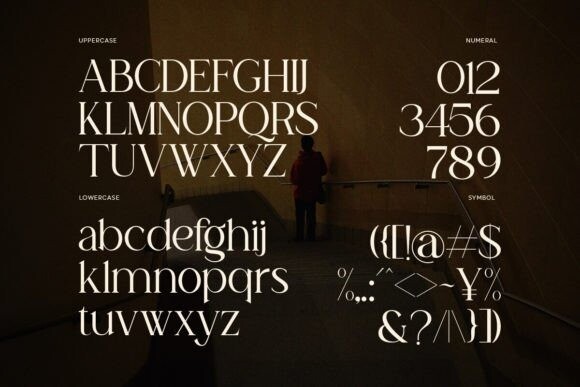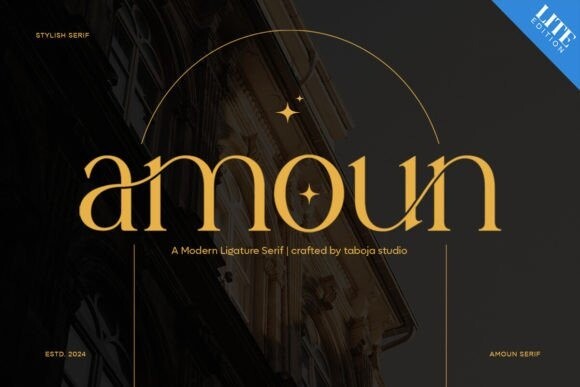
Amoun Font
Amoun Font – The lite edition of this font is an exclusive window for you to taste the essence and unique characteristics before its full version is released. Carefully curated with selected characters, this Lite version presents a tantalizing glimpse of clarity and captivating design capabilities.
Amoun modern ligature Serif Designed for versatility, a sophisticated choice for a myriad of design projects. The judicious use of thick and thin strokes imparts a timeless elegance, making it ideal for branding, editorial layouts, and various creative endeavors.
Its meticulous design, exquisite swash alternates, and diverse ligatures make it the perfect companion for a wide range of creative projects, ensuring your work radiates sophistication and charm.